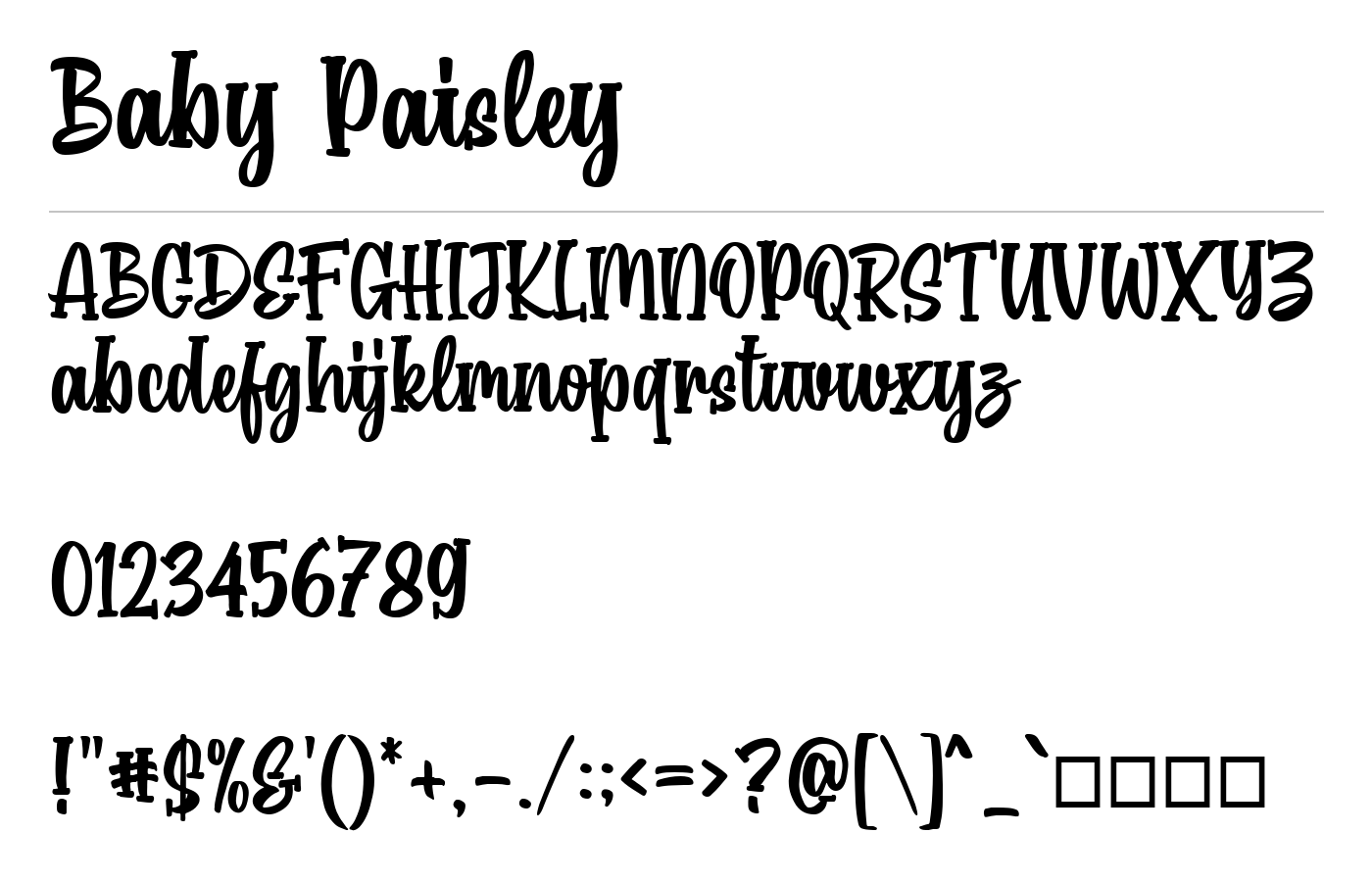
Baby Paisley is a warm and playful script-style font with a lively, hand-drawn feel. Its bold strokes and irregular shapes give it a casual, friendly personality that works well for creative, youthful branding and informal designs. This font is ideal for logos, invitations, packaging, and any project seeking a charming, approachable touch.
Baby Paisley Font
About Baby Paisley Font
| Font family | Baby Paisley Font |